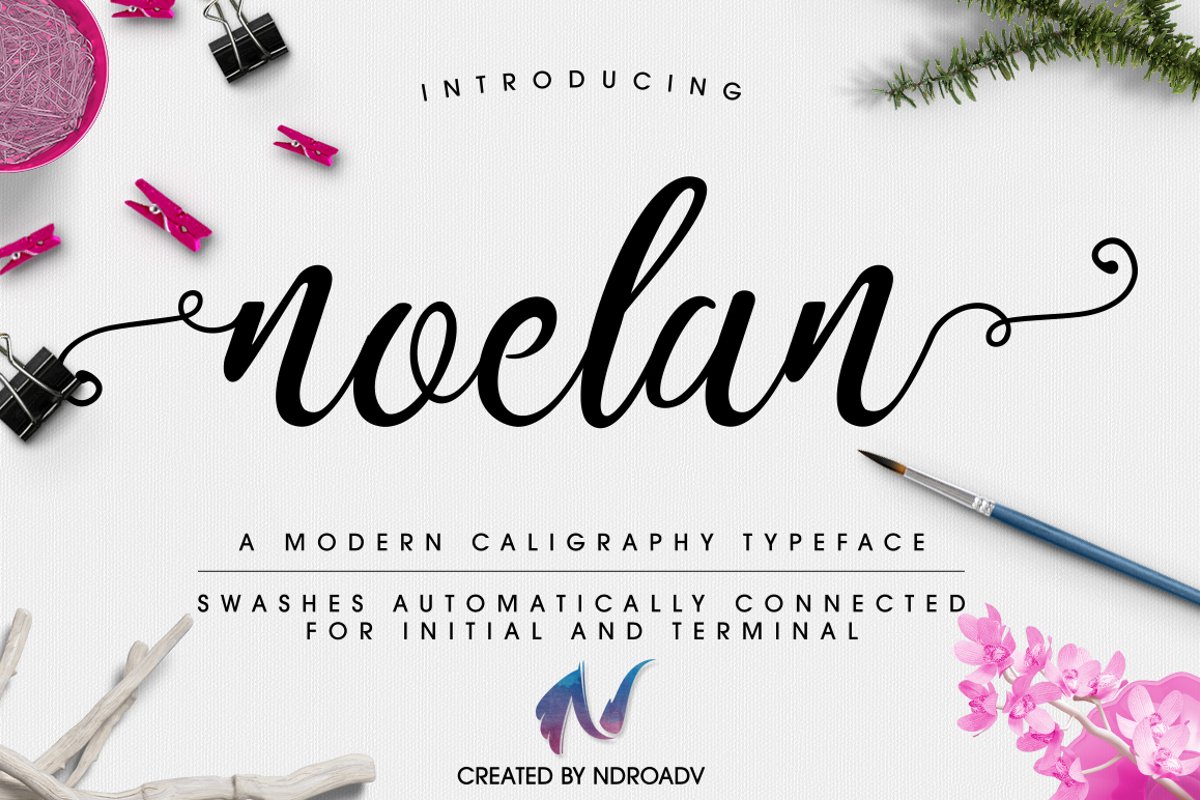
INTRODUCING Noelan Script A modern caligraphy typeface.
keep clean and simple modern design. many alternate of the feature so you can mix and match the design and swash automatically connected for iniatial and terminal form when you activate contextual alternate (that setting). and when you want to use any alternate just click turn off for the button contextual alternate.
Noelan Script Feature :
Contextual Alternates
Discretionary Ligatures
Stylistic Alternates
Numeric and Punctional
**International Characters: Žž£¢€ƒ†‡‰ŠšŒ™œŸ¤¥§©®µ¶¼½¾¿ ÀÁÂÃÄÅÆÇÈÉÊËÌÍÎÏÐÑÒÓÔÕÖרÙÚÛÜÝÞßàáâãäåæçèéêëìíîïðñòóôõö÷øùúûüýþÿ